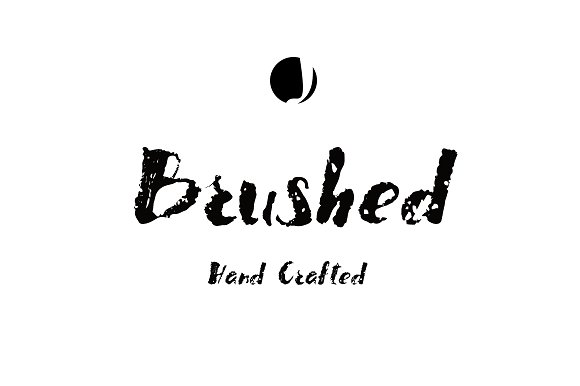
The Brushed Font: Adding an Authentic Touch to Your Designs
I still remember the time I was working on a project for a local coffee shop, trying to create a vintage-inspired logo that would make their brand stand out. I had a clear vision of a distressed, hand-painted look, but finding the right font was proving to be a challenge. That’s when I stumbled upon the Brushed font, a rough brush font that gives an authentic look to the text. It was love at first sight! ✨
An Honest Review of Brushed Font
What I Love About Brushed Font
- 💯 The Brushed font has an incredibly authentic, hand-painted feel that adds a touch of warmth and personality to any design.
- 🎨 Its versatility allows it to be used for a wide range of projects, from logos and branding to posters and social media graphics.
- ✅ The font is highly legible, even in smaller sizes, making it perfect for use in various contexts.
- 🔍 The unique texture and imperfections of the font give it a distinctive character that’s hard to replicate with other fonts.
While the Brushed font is amazing, it’s not without its quirks. 🤔 Here are a few things to keep in mind:
- ⚠️ The font’s texture and imperfections can make it more challenging to read in very small sizes or at a distance.
- ⚠️ Some characters, like the lowercase ‘q’ and ‘p’, can be a bit tricky to distinguish from one another.
- Experiment with the font’s OpenType features, such as stylistic alternates, to add more character to your text.
The Designer Inspiration Behind Brushed Font
The Brushed font was inspired by the works of street artists and graffiti writers. Its creator wanted to capture the raw, unbridled energy of street art and translate it into a digital font. The result is a font that’s equal parts rebellious and charming. 🎨
| What is the best way to use the Brushed font? | The Brushed font is perfect for designs that require a touch of authenticity and personality. Use it for logos, branding, posters, and social media graphics. |
| Is the Brushed font suitable for body text? | While the Brushed font is legible, it’s best suited for headlines and titles. For body text, consider using a clearer font to ensure readability. |